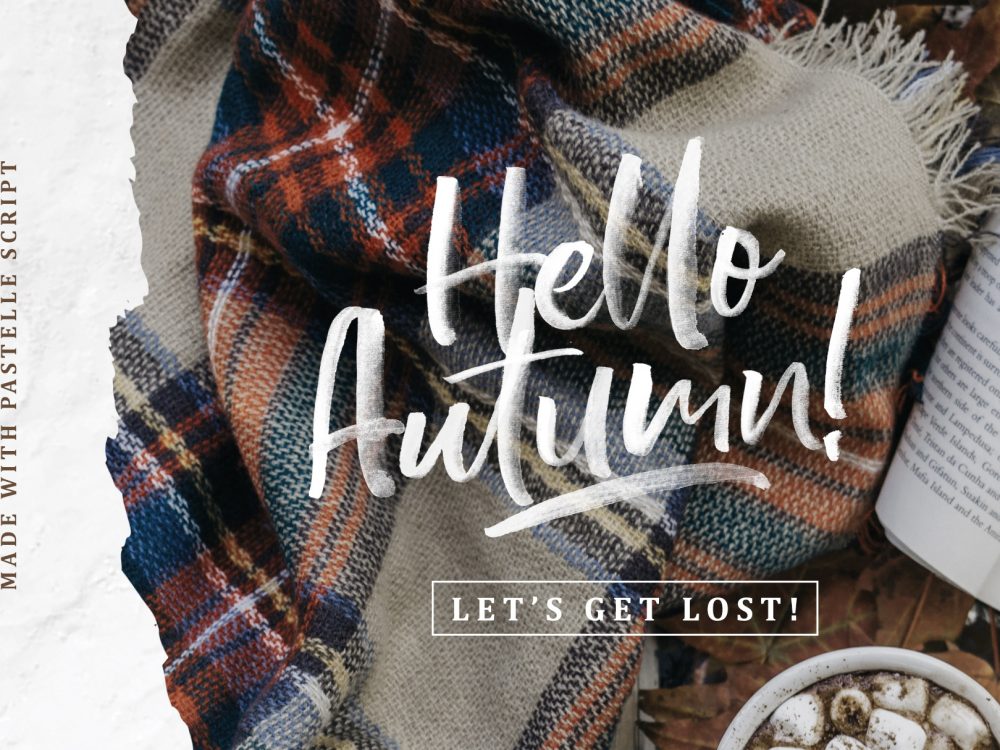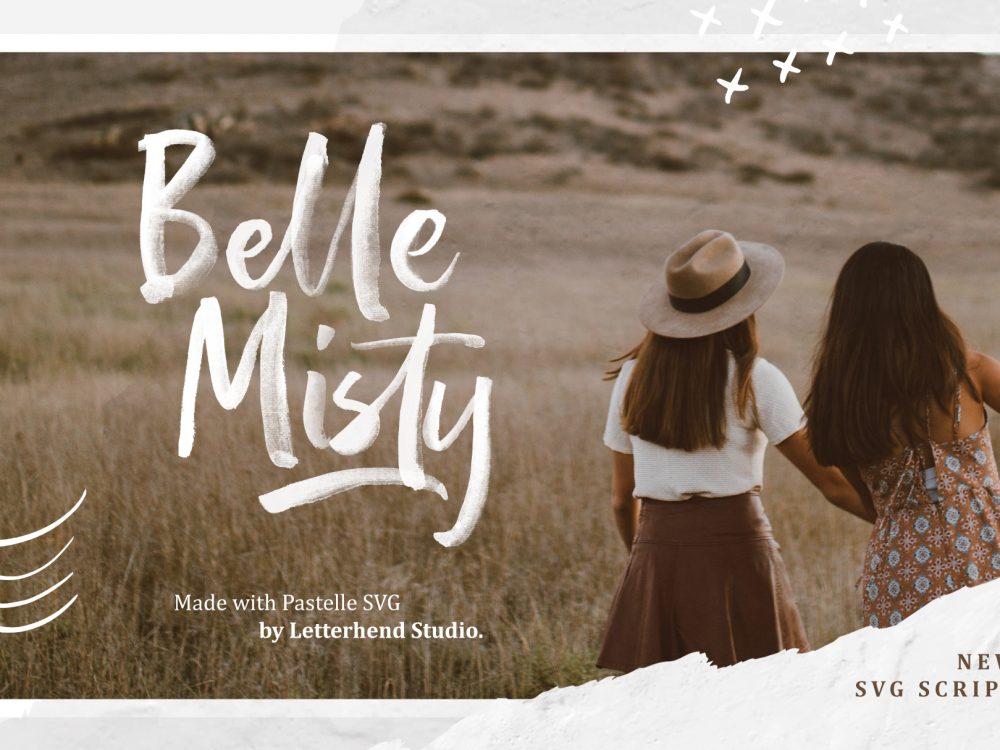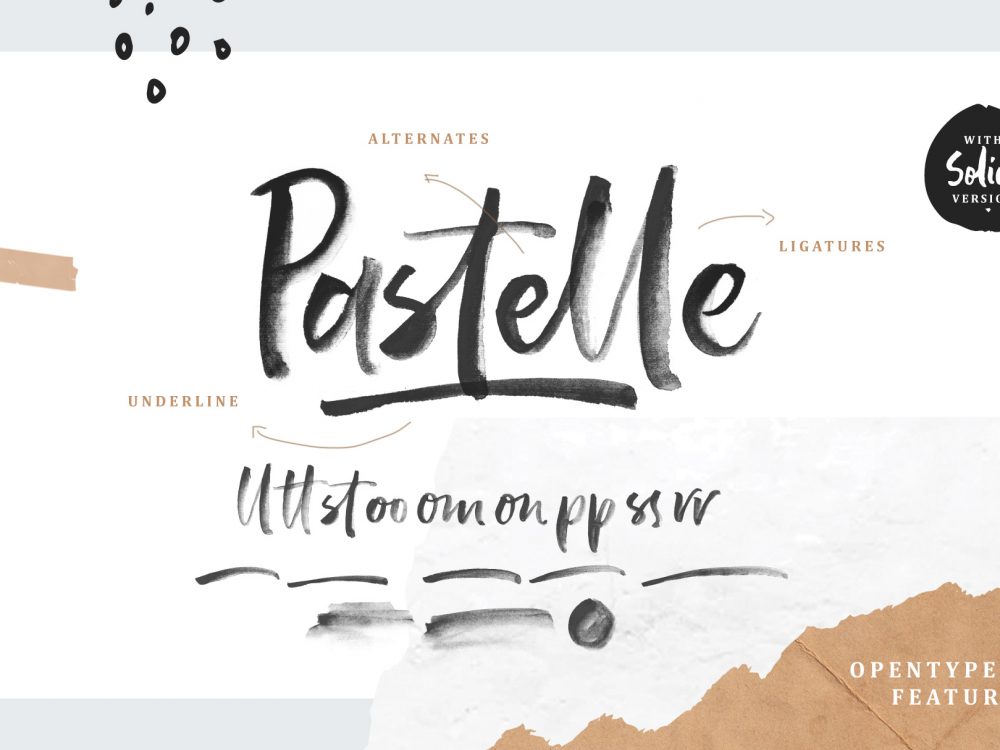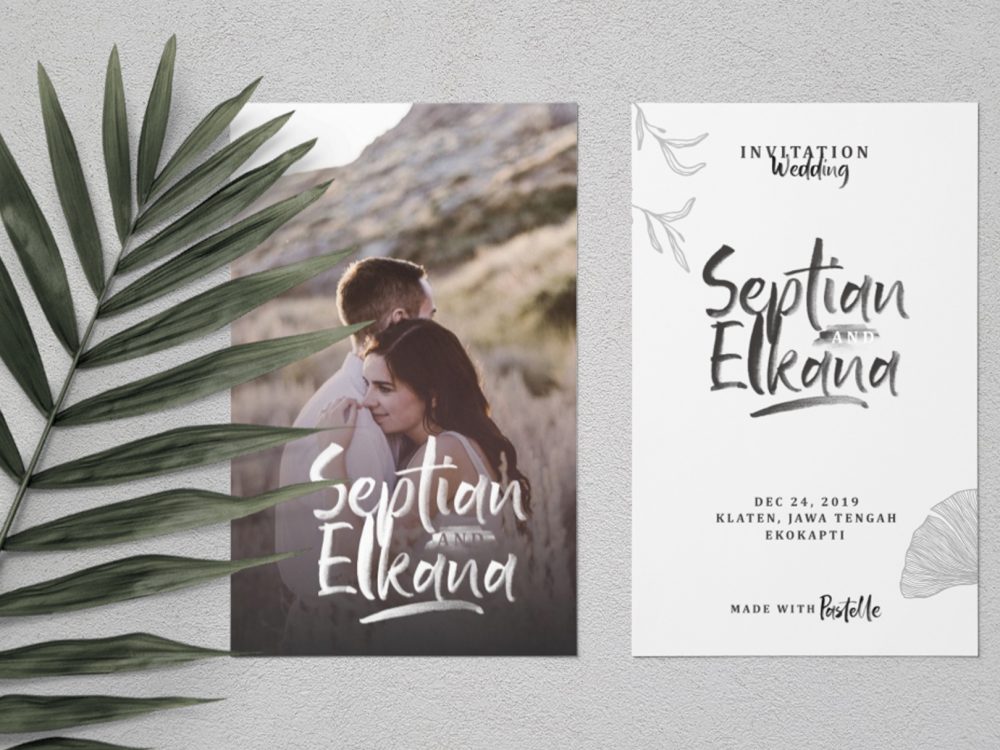
Pastelle Free Font
Pastelle Free Font is a handwritten font that simulates writing with a brush. The natural texture gives a unique touch. This font compares favorably with other fonts with a modern style and is very well suited for your various design projects that require a quality script font. You can use this font to create memorable romantic posters, wedding invitations, greeting cards, branding, flyers, t-shirt and pillow prints, and more. If you like it don’t forget to check out the full version.